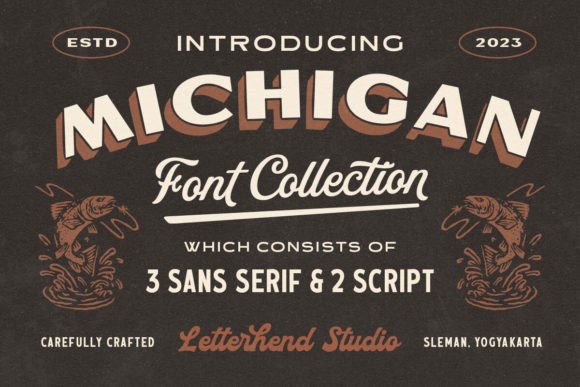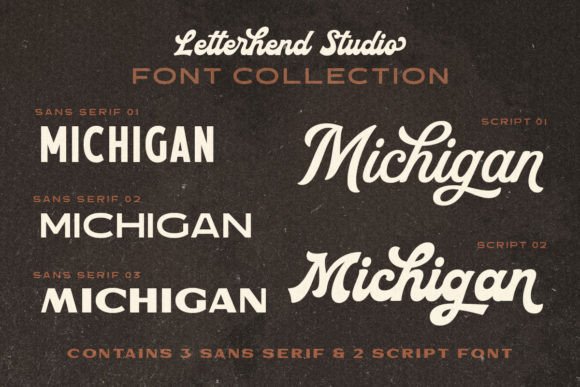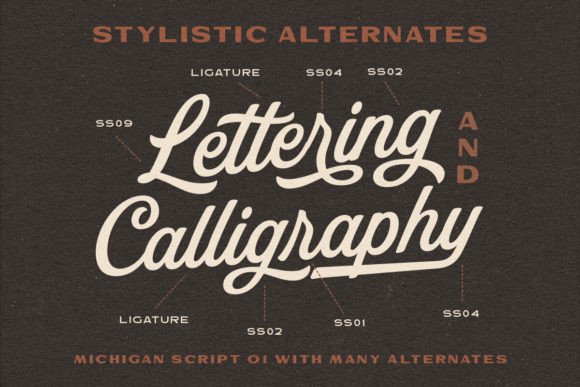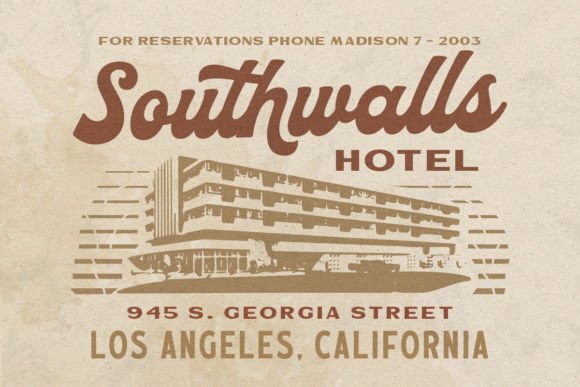
Michigan Font
About the Michigan Font
Step up your design game with Michigan Font, a font that exudes confidence and style. Skip the font dilemma and meet your design hero – Michigan! This collection packs a punch with 5 fonts in one buy. Enjoy 2 scripts and 3 sans- each rocking its unique style! It’s simplifying your design decisions!
This font is perfectly made to be applied especially in logos, and other various formal forms such as invitations, labels, logos, magazines, books, greeting/wedding cards, packaging, fashion, makeup, stationery, novels, labels, or any type of advertising purpose.
Michigan Font Usage Examples
Michigan Font Example